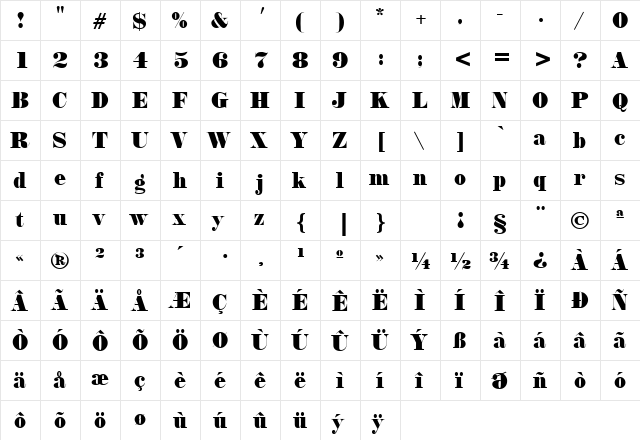
PT Cargo Normal
Design Context for PT Cargo Typeface
PT Cargo takes a measured approach to typography — its balanced proportions and neutral character make it a reliable workhorse for both digital and print work.